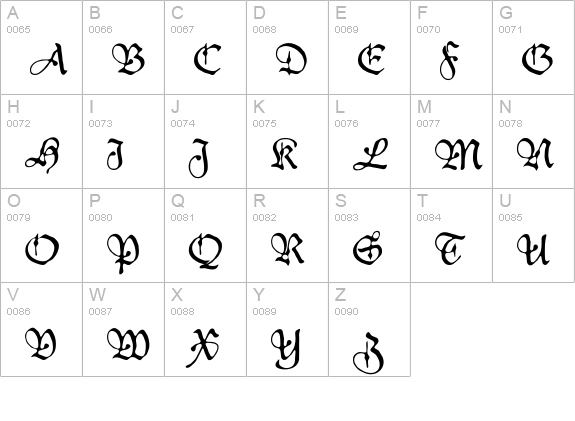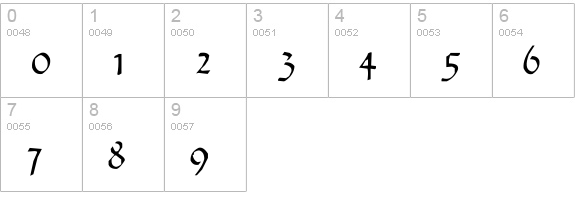
Dukeplus Font Details
Dukeplus font is a modern and stylish typeface that exudes elegance and sophistication. With its sleek lines and sophisticated curves, this font is perfect for adding a touch of class to any design project. The Dukeplus font is versatile and can be used for a variety of purposes, from branding to editorial design. Best of all, Dukeplus font is available for free download at FontsMarket.com. This means you can easily access this beautiful font and use it in your projects without any cost. So why wait? Enhance your designs with the timeless charm of Dukeplus font today!